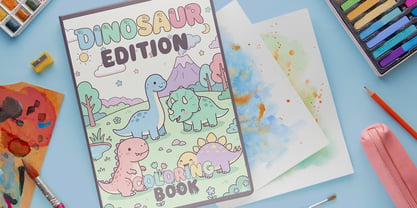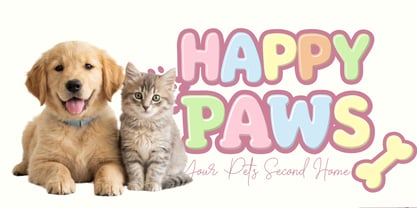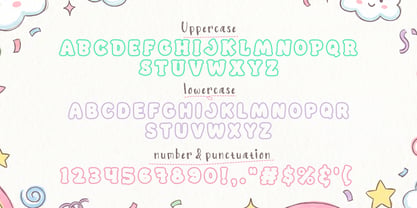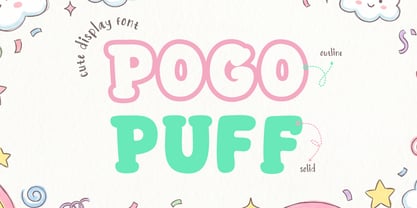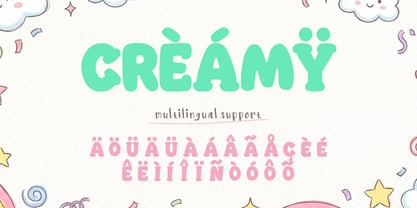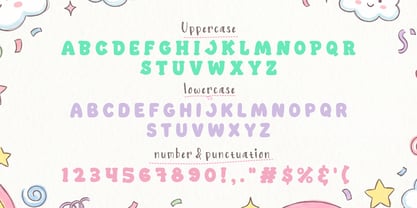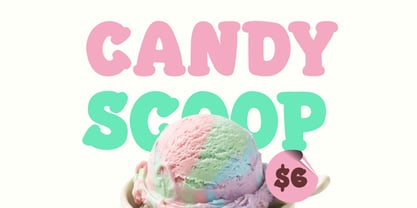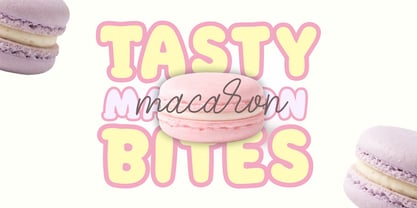
Pogo Outline
The Pogo Outline Font Family was designed by Sipanji and published by Sipanji21. Pogo Outline contains 2 styles and family package options. More about this family
Pogo Puff is a charming and playful display font that captures the essence of fun, creativity, and friendly design. Built with soft, rounded letterforms and a bubbly personality, this typeface is designed to bring warmth and joy into a wide range of creative projects. Its approachable style makes it suitable for audiences of all ages, especially in designs that aim to feel cheerful and engaging. The concept behind Pogo Puff is rooted in simplicity and happiness. Each character is crafted with smooth curves and balanced proportions, creating a harmonious and visually pleasing rhythm. The rounded edges give the font a soft appearance, making it feel welcoming and easy to read. One of the standout features of Pogo Puff is its dual style system: outline and solid. The outline style adds a light and decorative touch, perfect for layering, highlighting, or adding dimension to designs. The solid style, on the other hand, provides a bold and clear presence, ideal for headlines and strong visual statements. Together, these styles offer designers the flexibility to experiment and create unique compositions. The font includes uppercase and lowercase characters, allowing for versatile typography. Its multilingual support ensures usability across different languages, expanding its reach for global design projects. Numbers and punctuation are also included, maintaining consistency with the overall playful aesthetic. Pogo Puff excels in projects that require a fun and friendly tone. It is perfect for children’s designs, educational materials, branding, packaging, greeting cards, and social media content. Its cheerful appearance makes it particularly effective in capturing attention and conveying positive emotions. In branding, Pogo Puff helps establish a distinctive identity. It is ideal for businesses that want to appear approachable and creative, such as kids brands, cafes, toy companies, and lifestyle products. The font’s personality makes it memorable and helps brands stand out in competitive markets. From a design perspective, Pogo Puff is highly versatile. It can be paired with script fonts for a playful combination or with minimalist sans-serif fonts for contrast. Designers can also enhance it with colors, shadows, and outlines to create dynamic visuals. Technically, the font is designed for high-quality output in both print and digital formats. Its clean vector structure ensures crisp results at any size. Whether used in large-scale designs or small details, it maintains its clarity and charm. Pogo Puff is more than just a font—it is a creative expression of joy and imagination. It invites designers to explore playful ideas and create designs that connect emotionally with their audience. Its unique combination of simplicity, versatility, and personality makes it a valuable addition to any design toolkit.